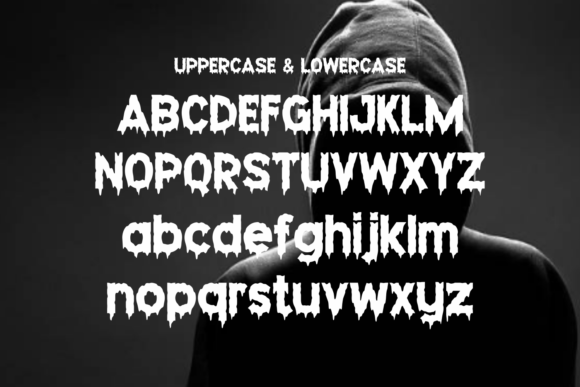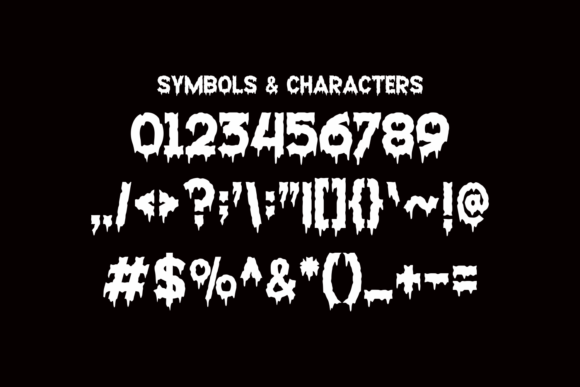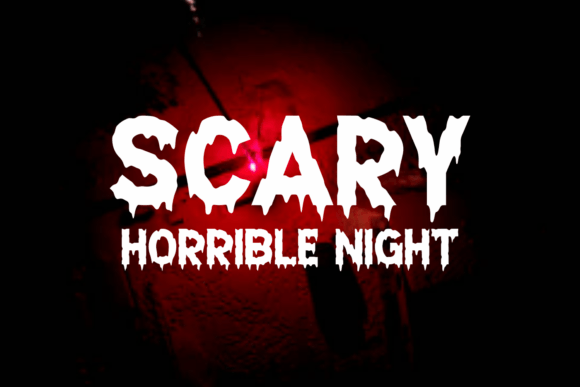
Introduction to Rismika Font
Have you ever stared at a blank canvas, waiting for inspiration to strike? The blank page can be intimidating, but sometimes all it takes is the right tool to set your creative juices flowing. For designers, the perfect font can be the spark that ignites a project. This is where the Rismika Font comes in – a versatile and elegant design resource that can elevate any creative project.
Whether you’re working on a branding project, designing a poster, or creating a logo, the Rismika Font is an excellent choice. Its high-quality design makes it perfect for both print and screen, allowing you to seamlessly transition between different mediums. And the best part? It’s available for free download, making it an accessible resource for designers of all levels.
Key Features of Rismika Font
- High-quality, free download font suitable for various creative projects
- Transparent background design, allowing for effortless layering and composition
- Designed as a versatile design resource, ideal for graphic designers, digital artists, and web developers
- High-resolution font, suitable for use at various resolutions, including 300 DPI and 600 DPI
- Unique, modern design with a touch of elegance, making it perfect for branding and marketing materials
Honest Review: Rismika Font
As a designer, I’m always on the lookout for high-quality design resources to elevate my creative projects. The Rismika Font is one such find that caught my attention. I decided to put it to the test and share my honest review.
- ✨ Unique and stylish design aesthetic that’s perfect for modern branding
- ✨ High-quality glyphs and characters that are easy to read and use
- ✨ Free download option, making it an excellent choice for designers on a budget
One of the standout features of the Rismika Font is its versatility. It works well for both digital and print applications, making it a great all-around choice for designers. The font’s transparent background also allows for seamless integration with other design elements.
- ⚠️ Limited language support, which may be a concern for designers working on multilingual projects
- ⚠️ Not ideal for body text due to its decorative nature
Overall, I’m impressed with the Rismika Font’s design and functionality. While it may not be perfect for every project, it’s a valuable addition to any designer’s toolkit. With a little creativity, the Rismika Font can help take your designs to the next level.
The Rismika Font is a high-quality design resource ideal for creative projects requiring a unique touch. It offers a transparent background, making it versatile for various applications.
The Rismika Font is suitable for various creative projects, including graphic designs, presentations, and documents. Its high quality and unique design make it an excellent addition to any design resource library.
Yes, the Rismika Font supports transparent background images. This feature allows you to create designs with a seamless background, making it ideal for creative projects that require a high level of design flexibility.